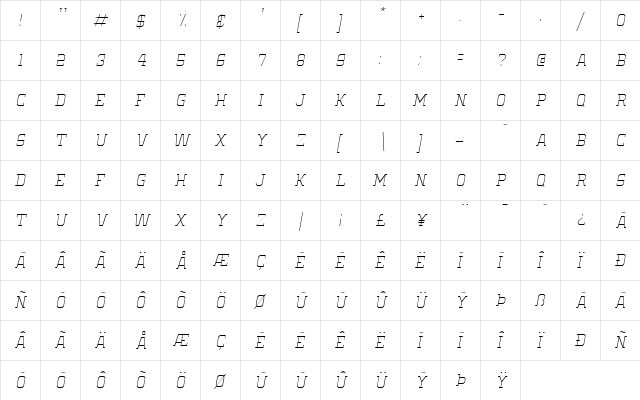
Old School United Hairline Italic
| Foundry | Fr餩ric Rich |
| Designer | Fr餩ric Rich |
Design Context for Old School United Typeface
Old School United is a composed and adaptable typeface that performs quietly and consistently across a wide range of design contexts. The slanted form adds forward momentum and visual energy. Its slender proportions lend an understated elegance to any composition.
Pro Tip: Use Old School United for emphasis, pull quotes, and subheadings where its slanted energy can add rhythm to the layout.